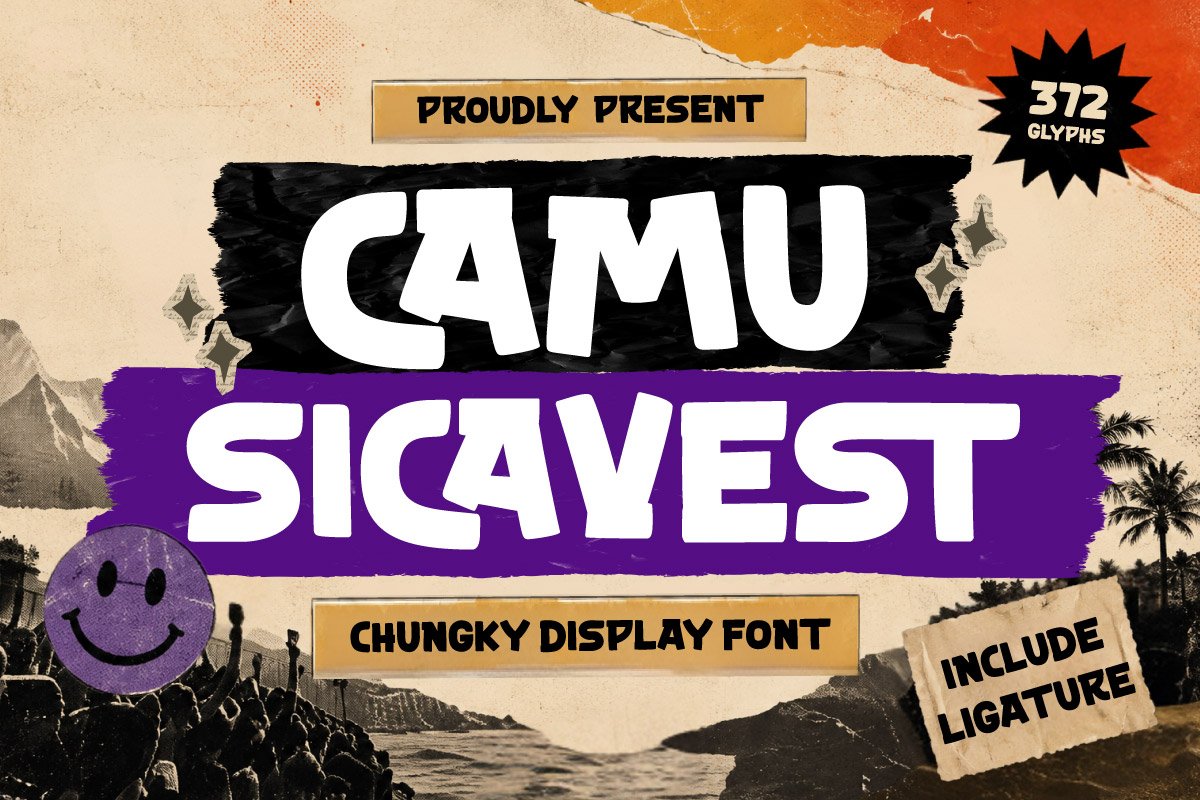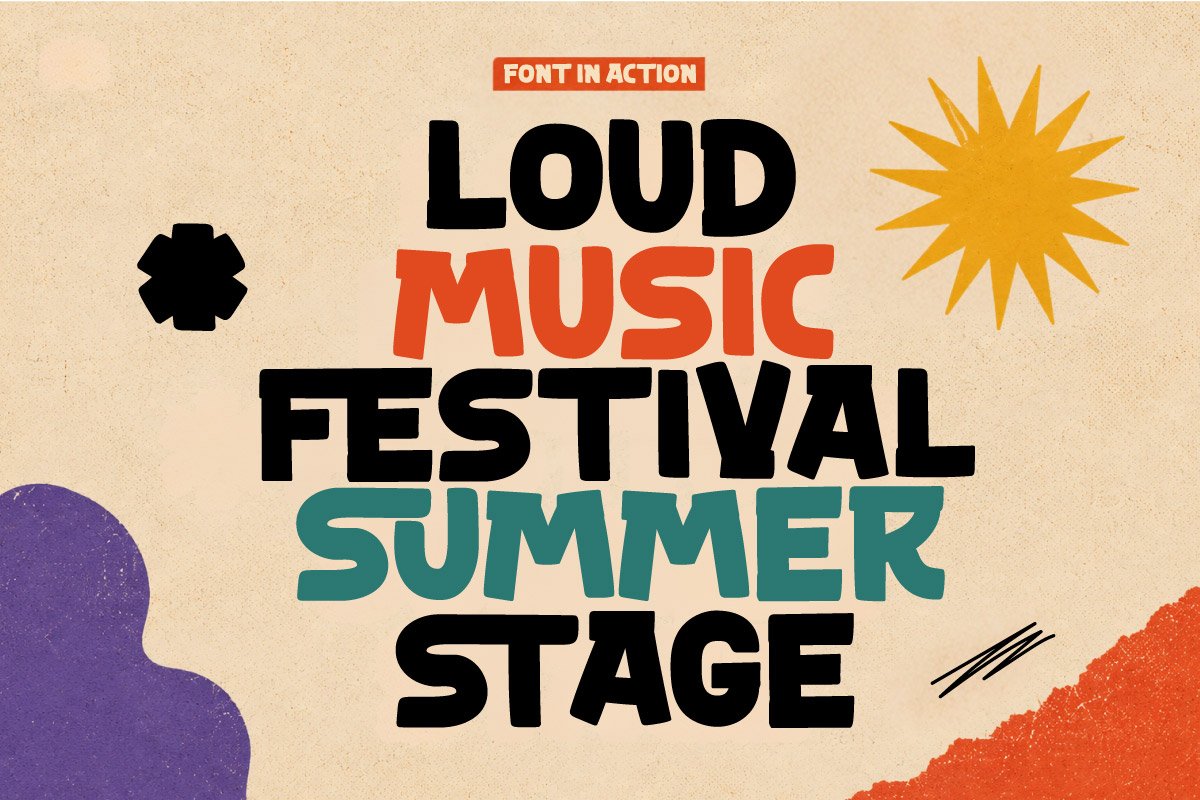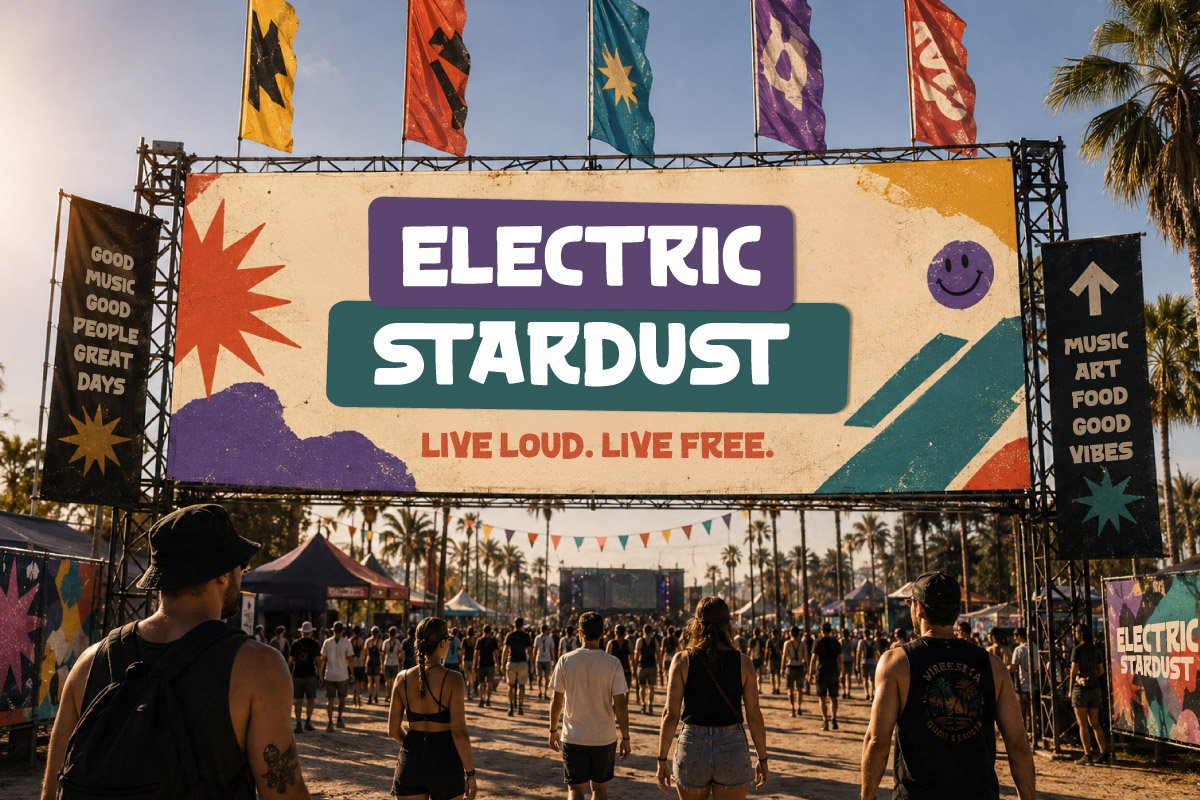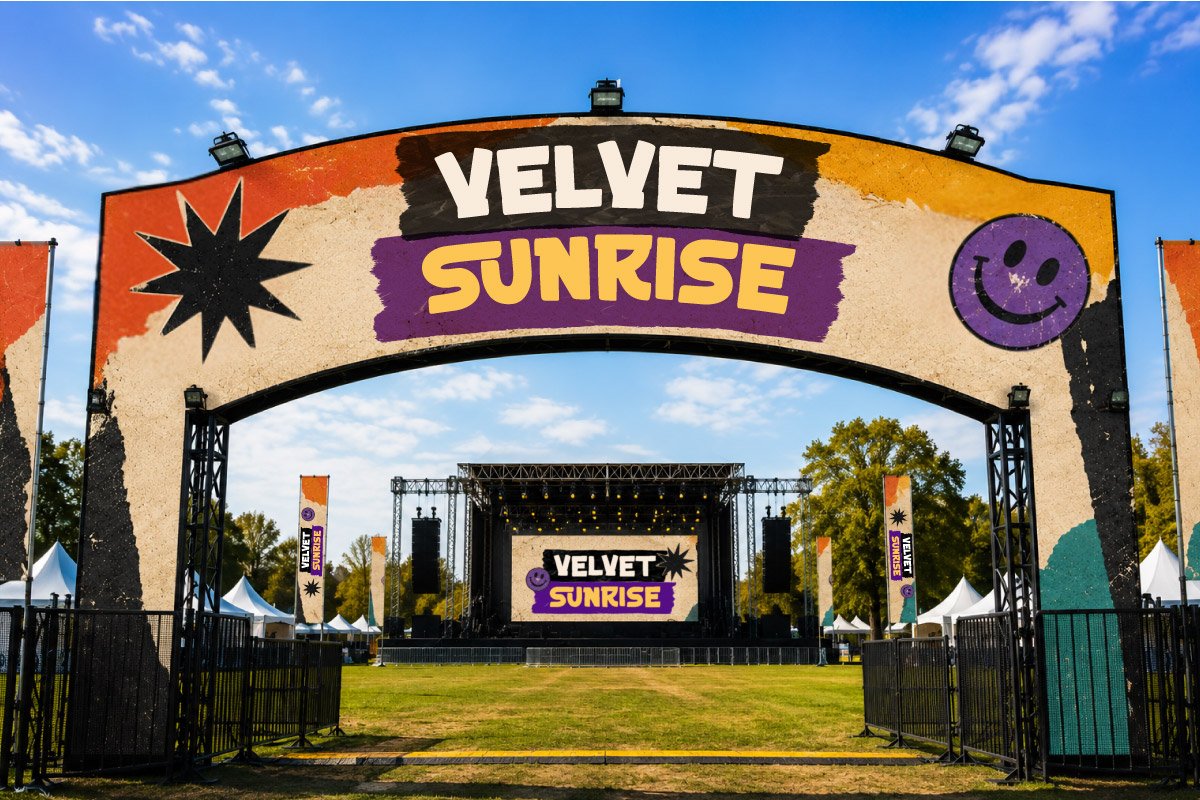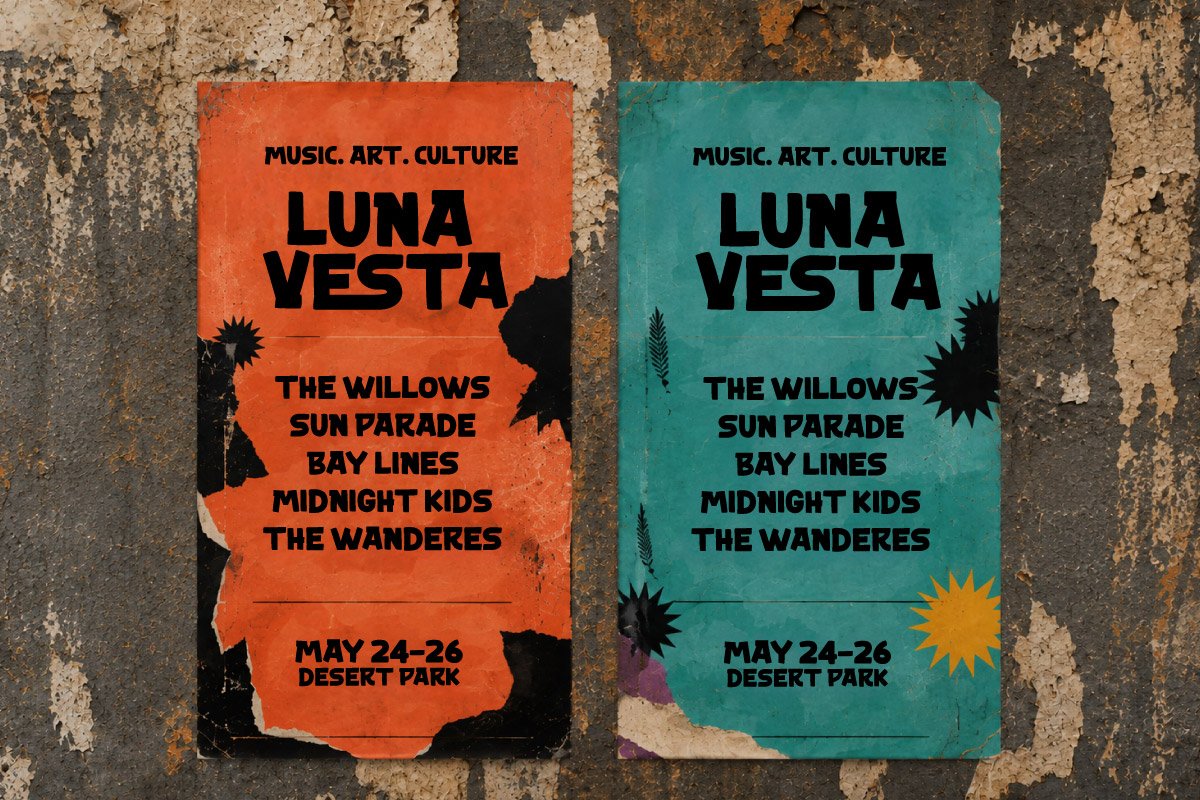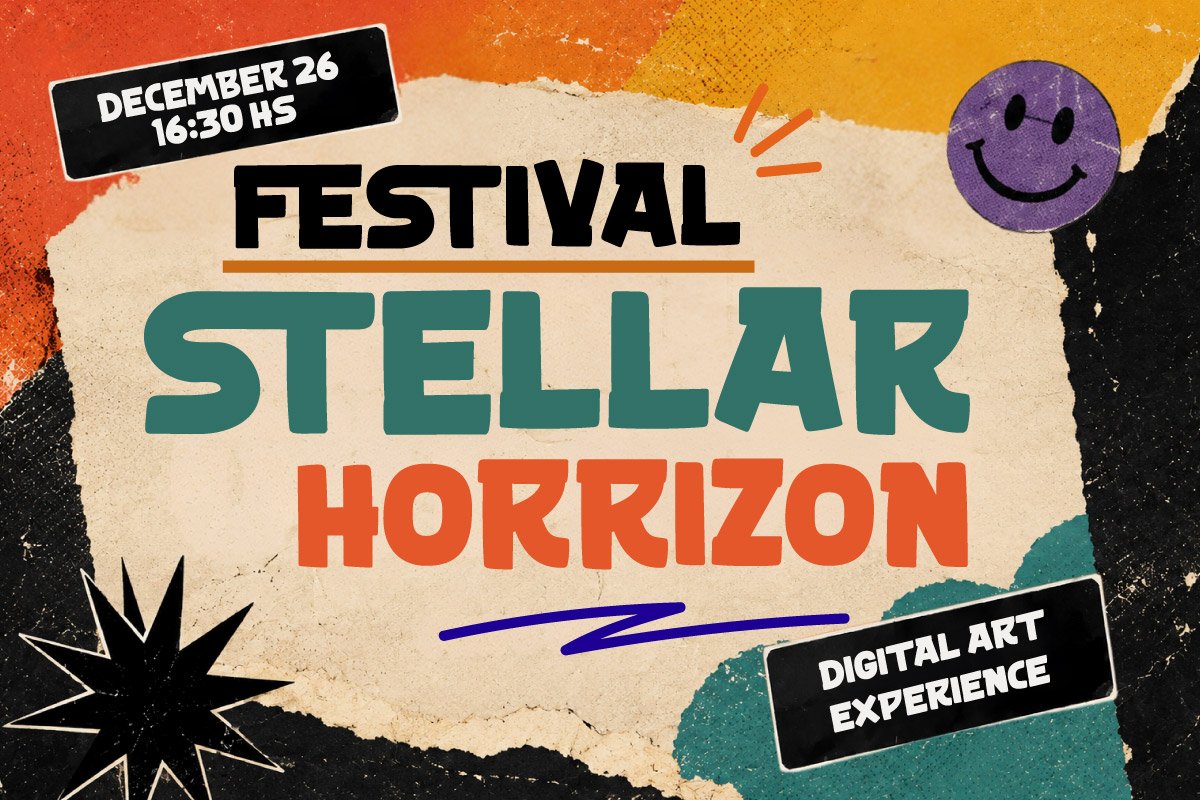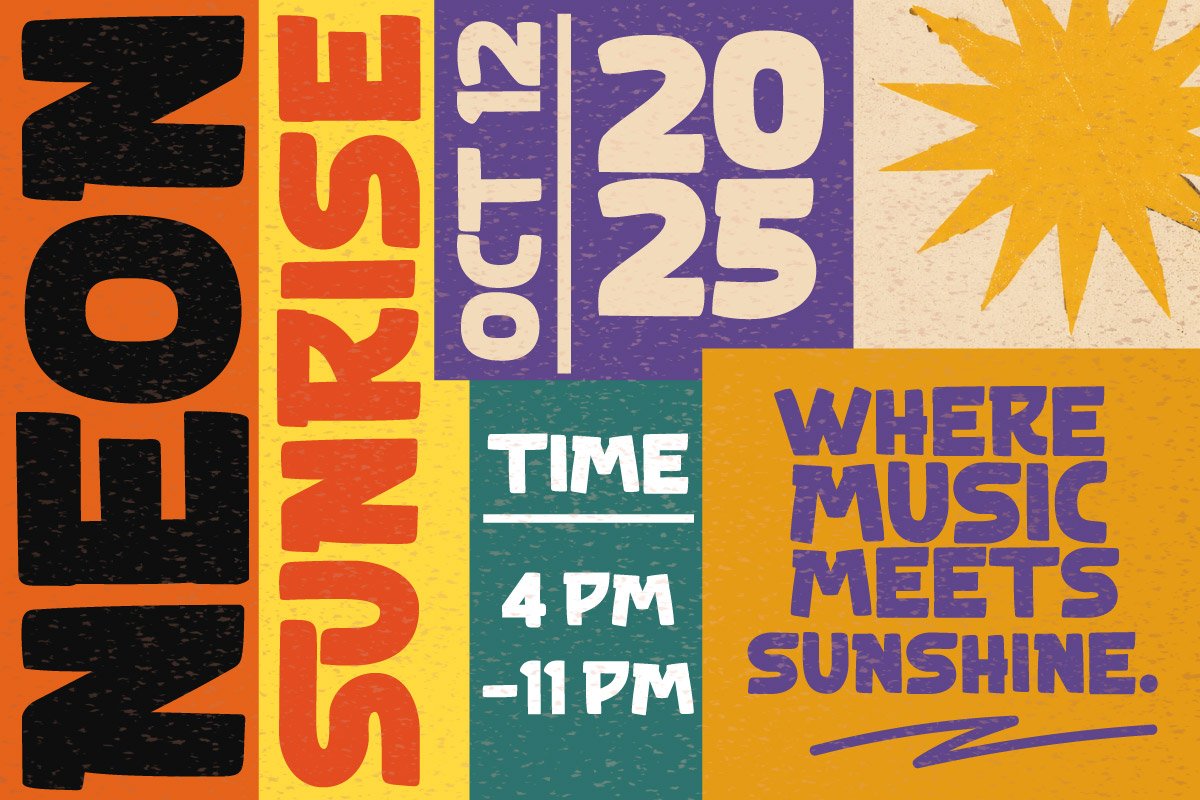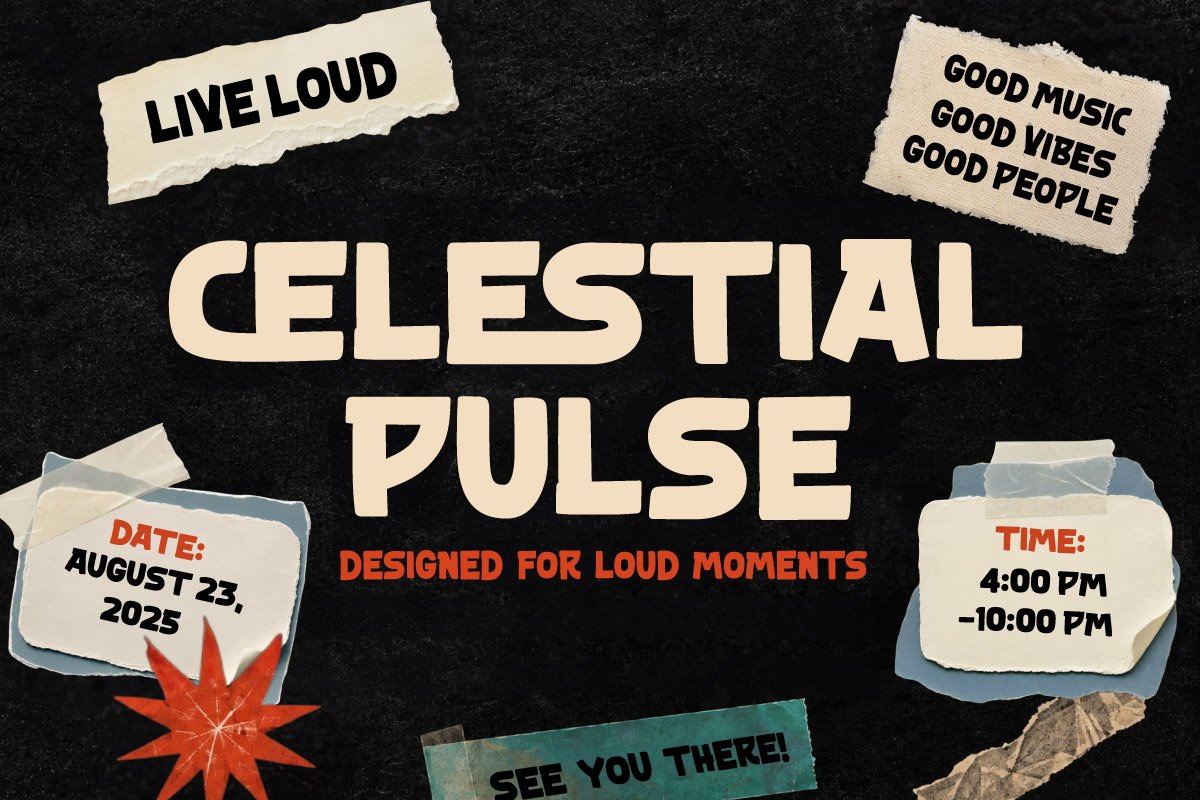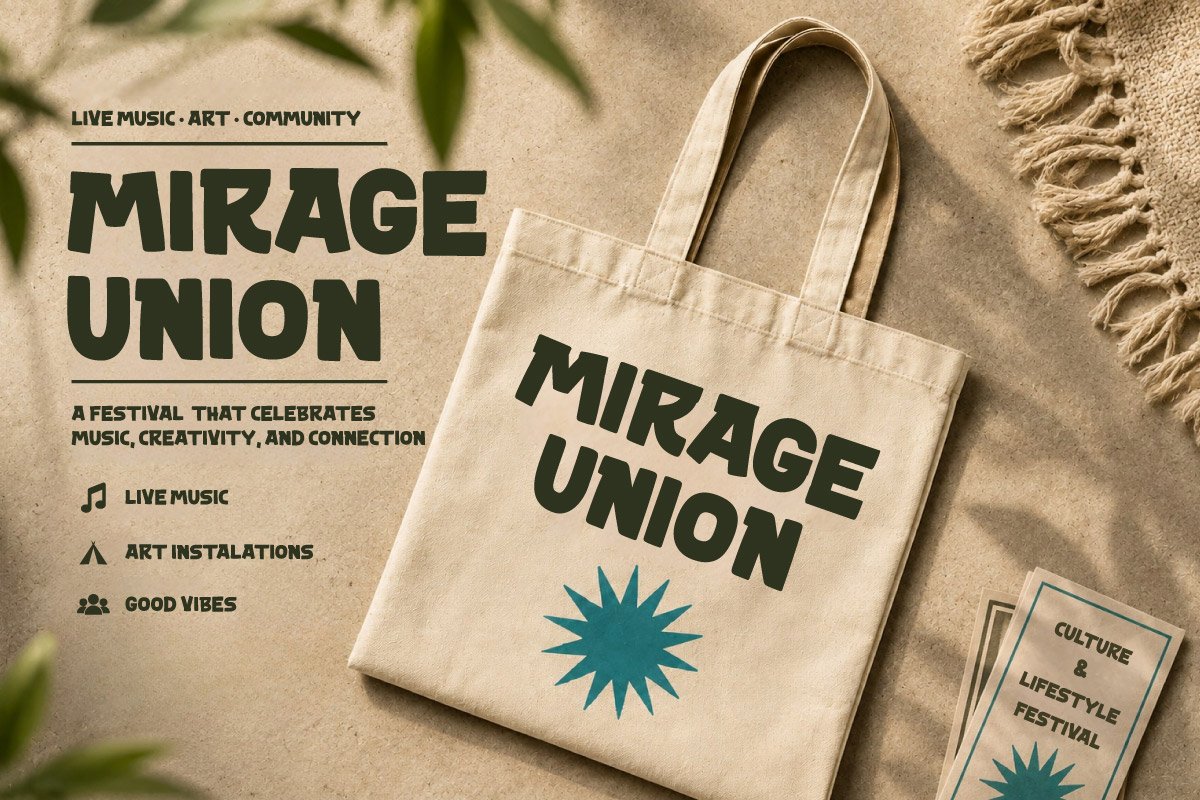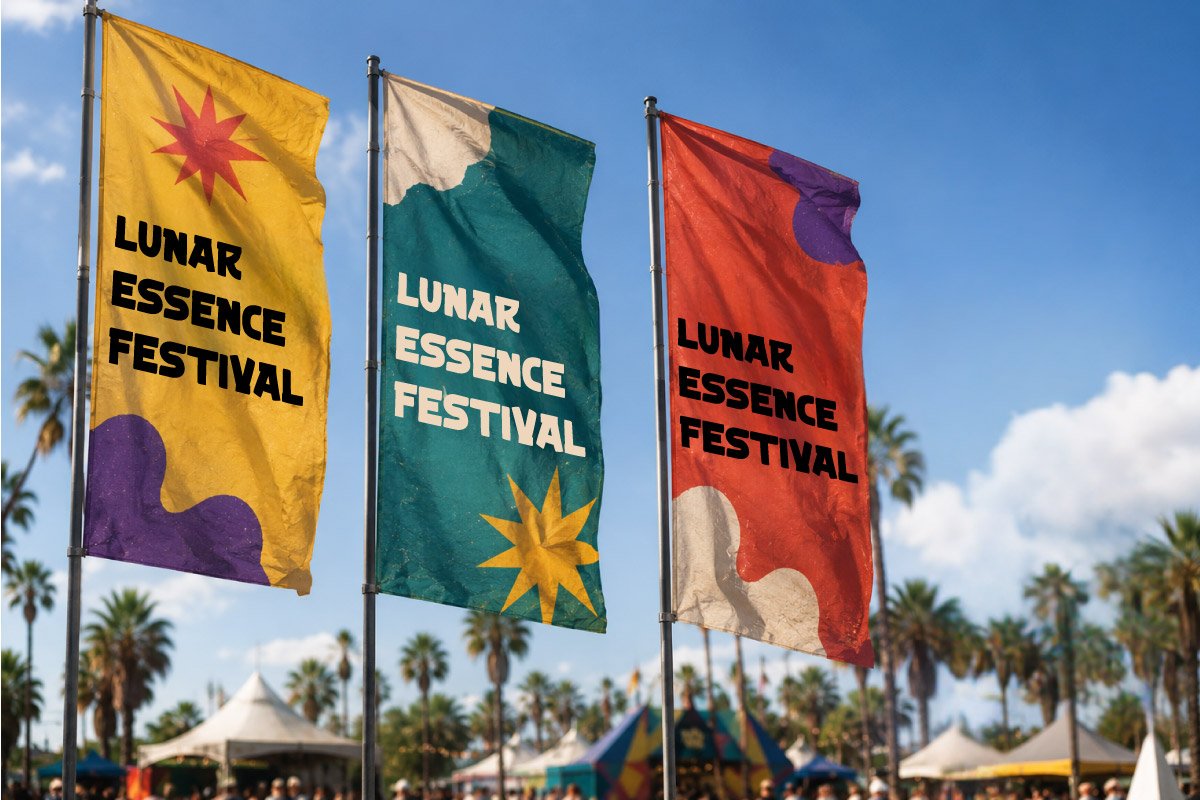
- Camu Sicavest – Chunky Display Font
Camu Sicavest is a bold and playful chunky display font designed to make headlines instantly stand out. With its strong, compact letterforms and distinctive personality, this typeface brings an energetic visual impact to music festival artwork, concert posters, event branding, party flyers, promotional campaigns, and creative summer designs.
Its eye-catching style is ideal for creating memorable event titles, artist lineups, stage graphics, merchandise, social media campaigns, tickets, banners, and advertising materials. Whether you’re designing a vibrant music festival identity or a modern promotional campaign, Camu Sicavest adds a confident and youthful touch that helps your typography grab attention.